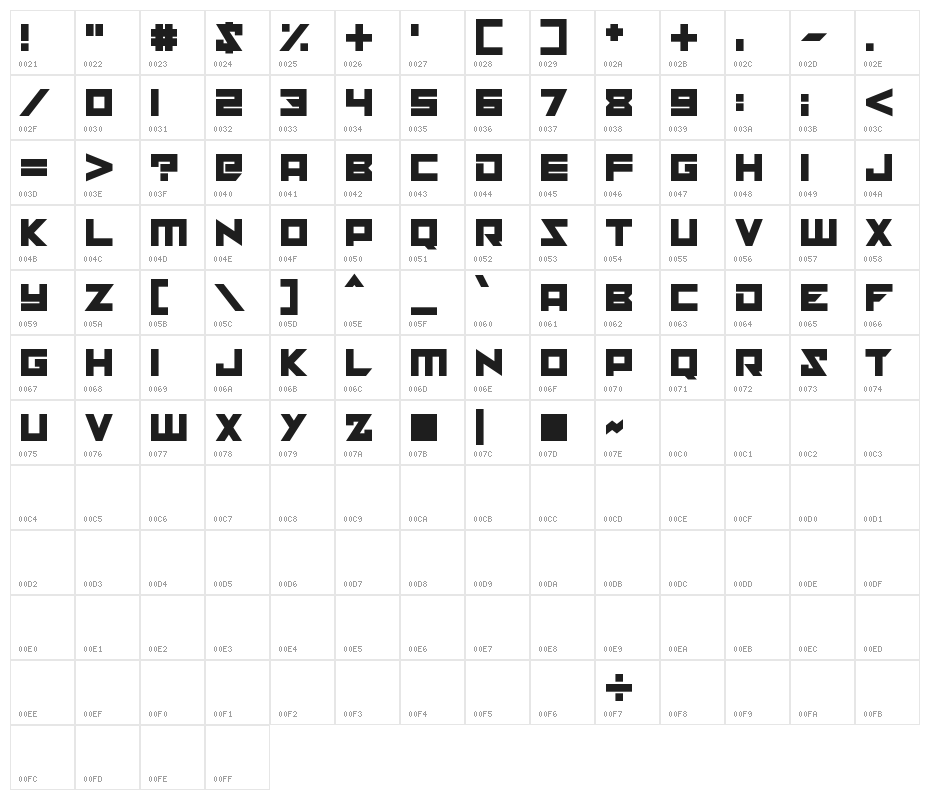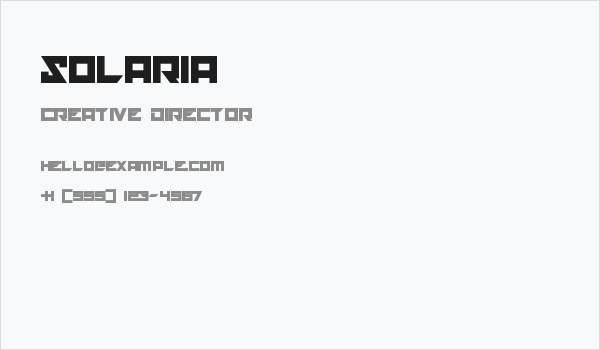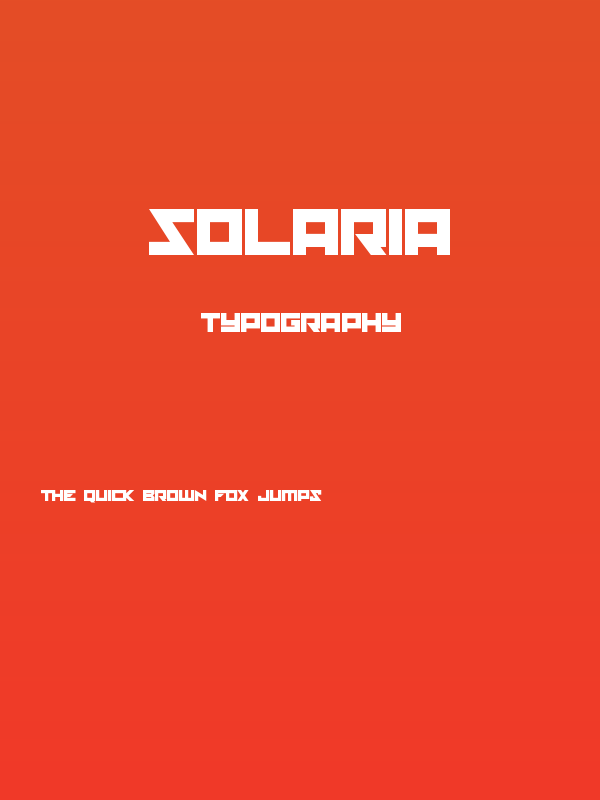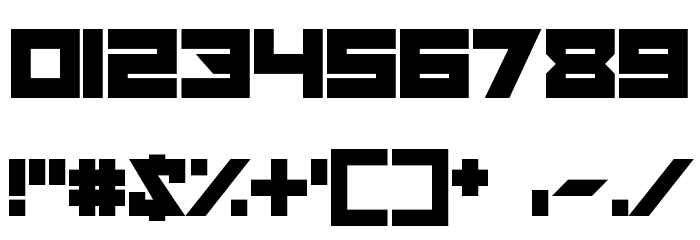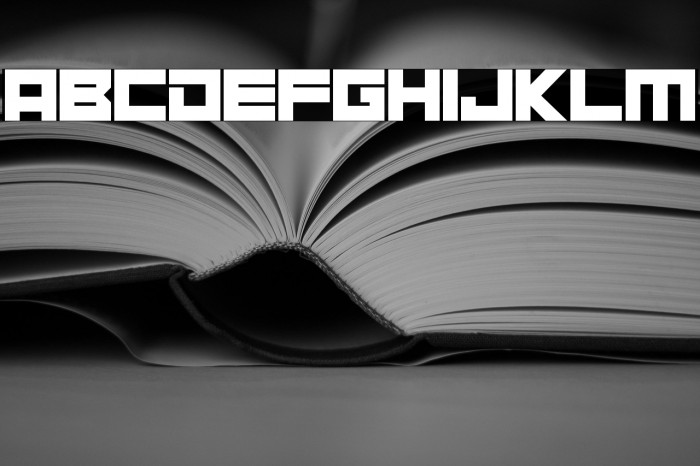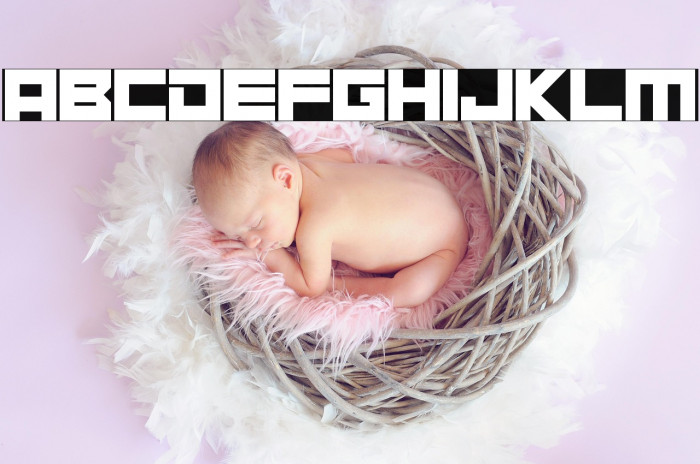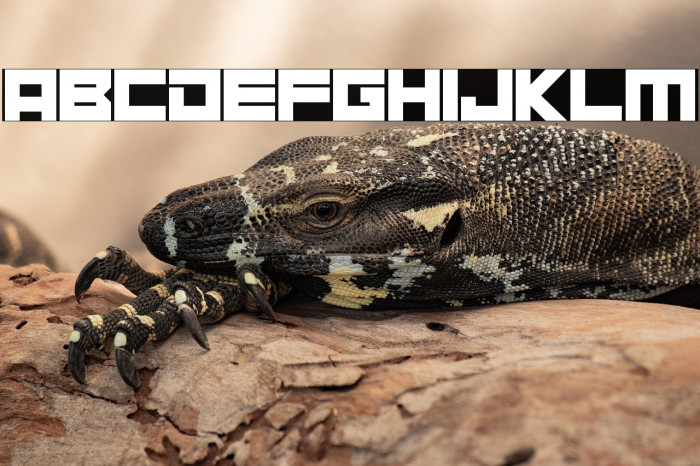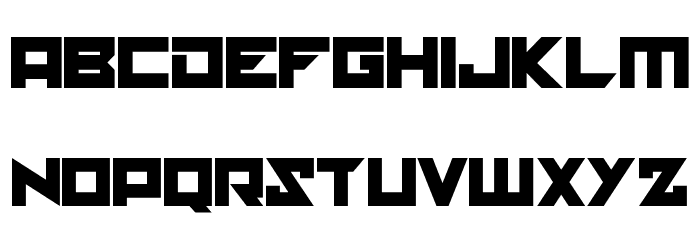
solaria Font
solaria Description
This font features a bold, geometric design with sharp angles and a futuristic aesthetic. The characters are constructed with straight lines and angular cuts, giving them a distinct, edgy appearance. The uppercase and lowercase letters maintain a consistent style, with the lowercase mirroring the uppercase in form. Numbers and special characters follow the same geometric pattern, ensuring uniformity across all glyphs. The font's blocky structure and high contrast in stroke thickness make it highly legible and impactful, ideal for attention-grabbing designs.
| Proposed Projects | Ideal for sci-fi themed projects, technology branding, video game titles, and modern poster designs. |